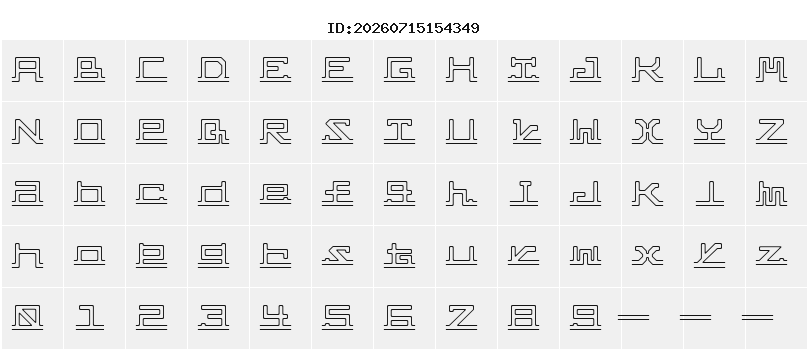
• Font Name: abc,pipe
abc,pipe.ttf is a modern, elegant sans-serif font designed for ultimate readability and visual harmony. Perfect for branding, headlines, web design, and print materials.